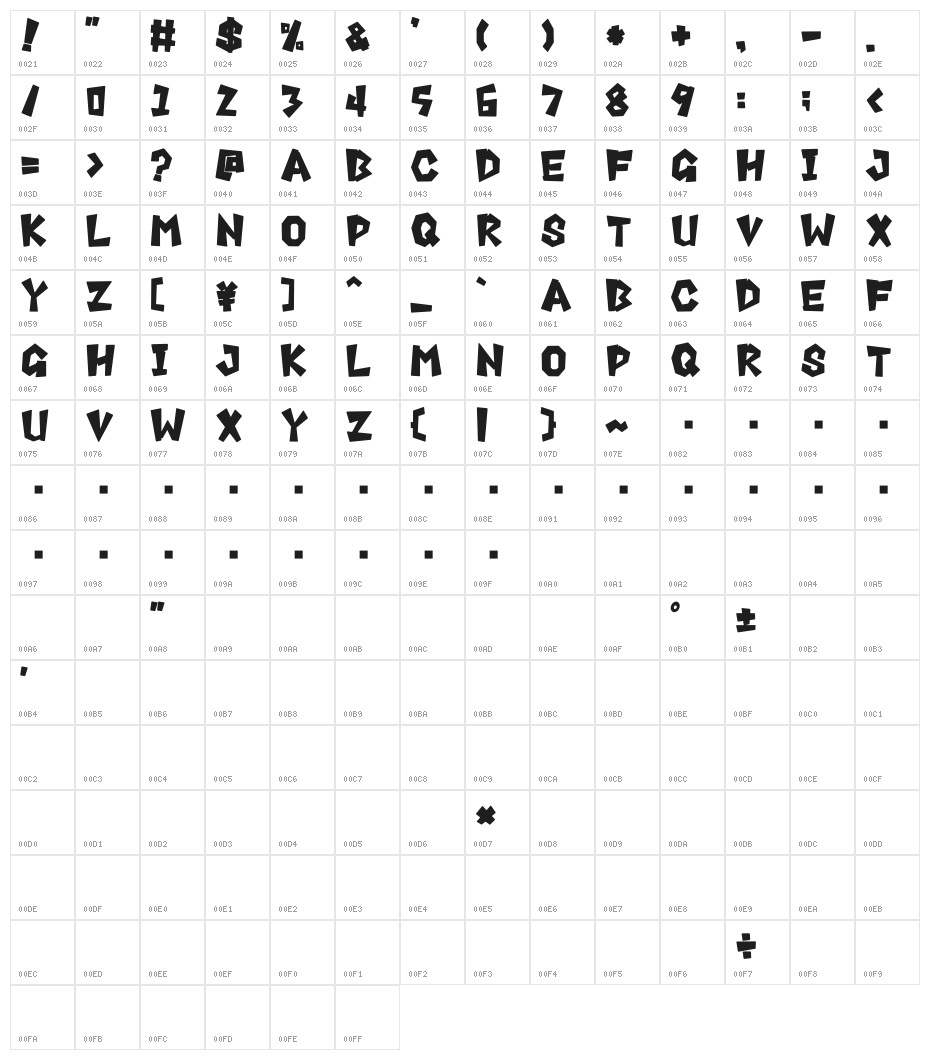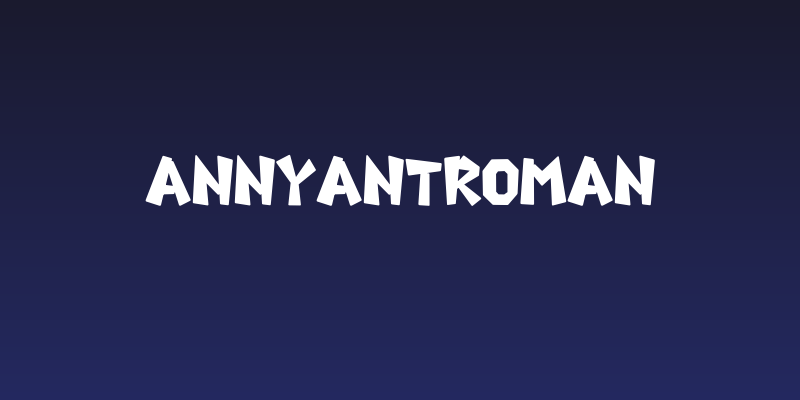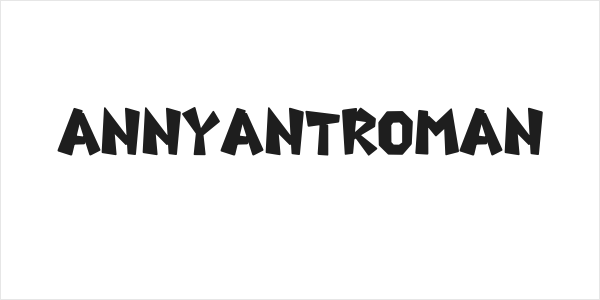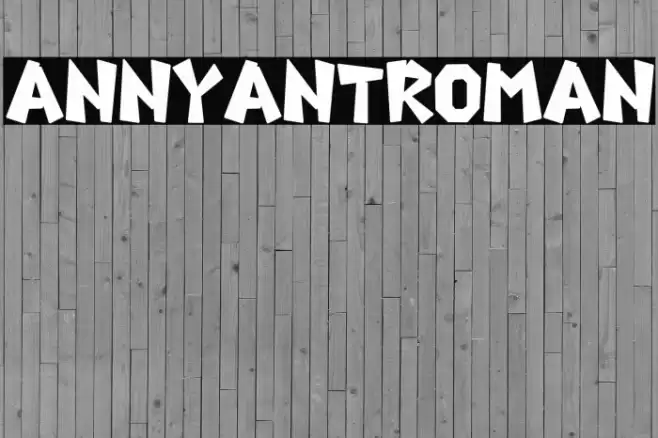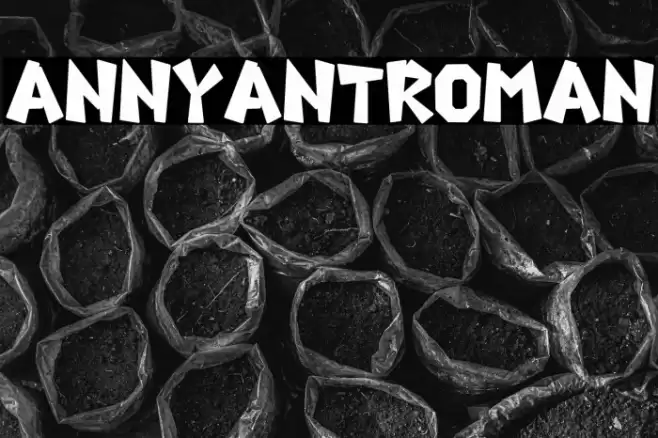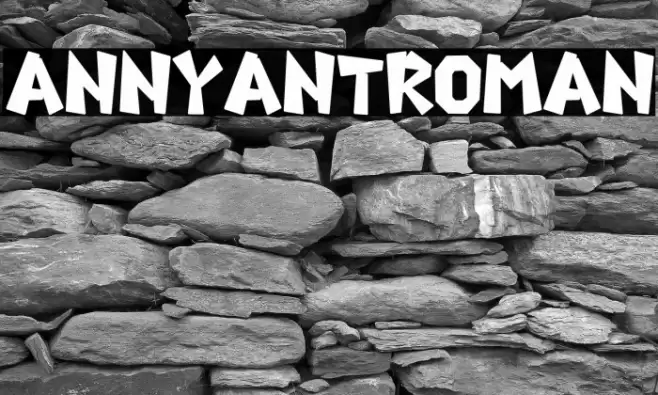
AnnyantRoman Font
AnnyantRoman Description
This font features a bold and playful style with a distinctly irregular and hand-drawn appearance. The letters are characterized by uneven strokes and a slightly jagged edge, giving it a dynamic and energetic feel. The uppercase and lowercase letters maintain a consistent style, with each character exhibiting unique quirks that add to the overall charm. The numbers and special characters follow the same aesthetic, ensuring a cohesive look across all text. This font is ideal for projects that require a fun and informal touch, such as children's books, comic strips, or playful branding.
| Overall Style | Playful, Energetic, Hand-drawn |
| Proposed Projects | Children's books, comic strips, playful branding, posters, and casual invitations. |